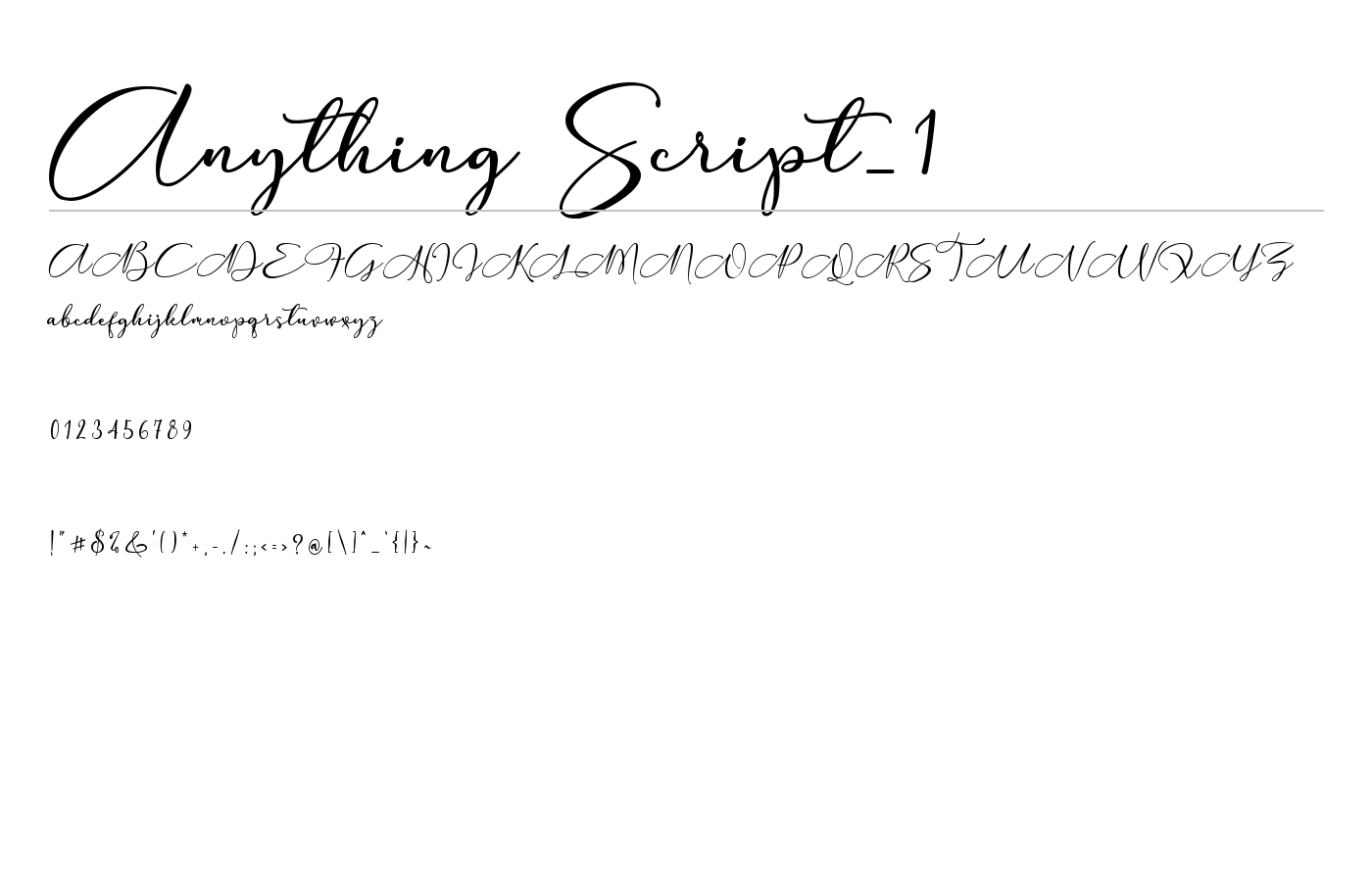
Anything Script_1 is a delicate, elegant script font featuring fine, fluid strokes with a natural, handwritten look. Its thin, airy letterforms and graceful uppercase characters convey a refined, sophisticated personality, making it perfect for wedding invitations, branding, or luxury editorial designs where a personal, stylish touch is desired. This font works best in large sizes to showcase its intricate details and charm.
Anything Script_1 Font
About Anything Script_1 Font
| Font family | Anything Script_1 Font |
| Designer | Aldedesign 2019 (Alde Saputro) |